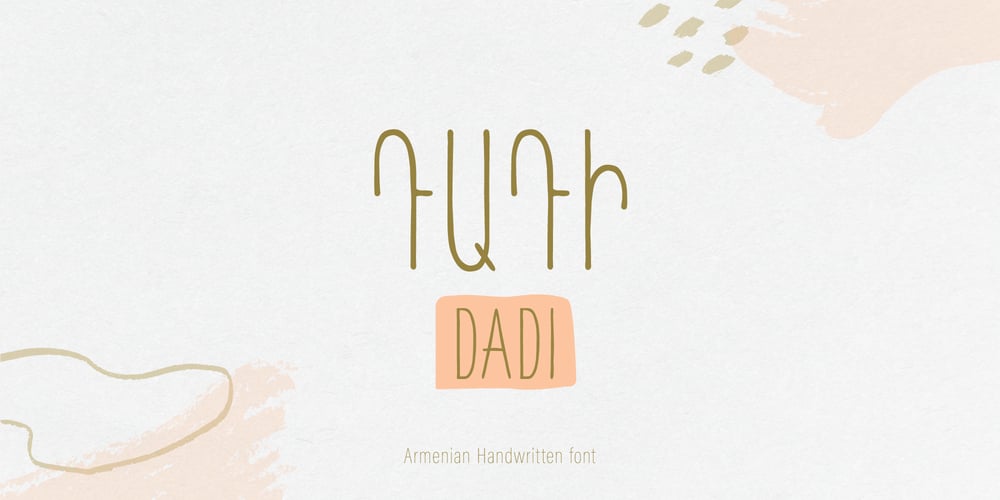
DaDi Arm Font Family was designed by Hasmik Sahakyan and published by inknagir. DaDi Arm contains 1 styles and family package options. New Font for Armenian Designers. This is an Armenian handwritten font. The font is comprised of Armenian letters only All Caps, numbers, and minimal punctuation.